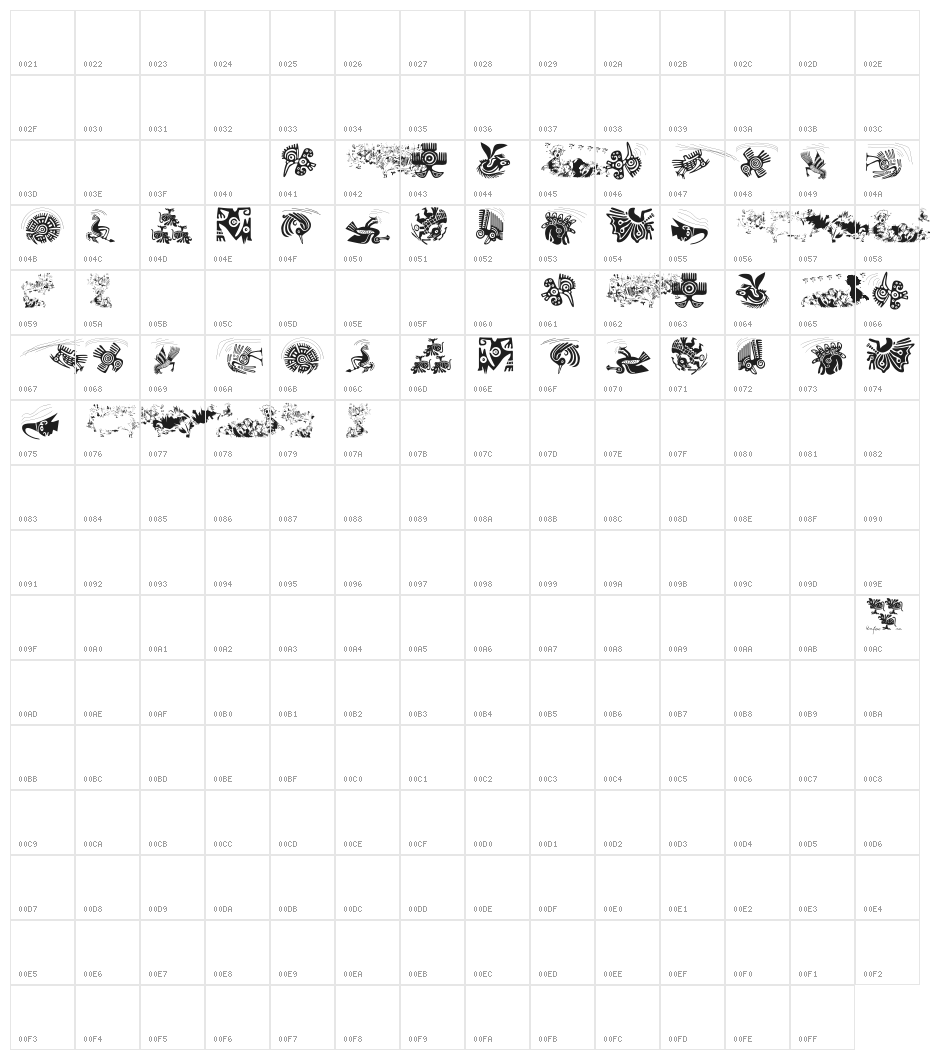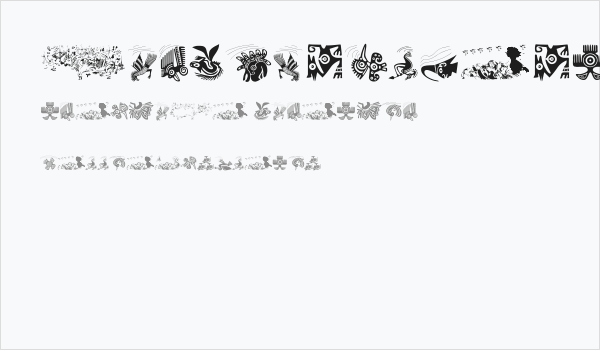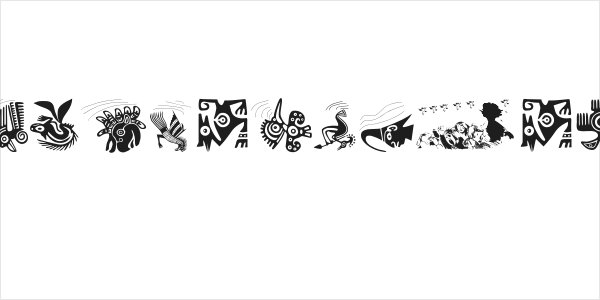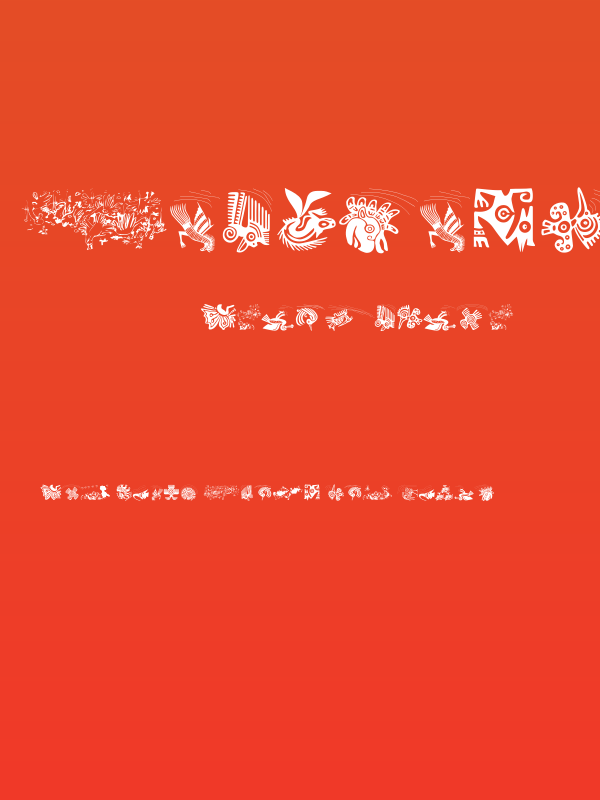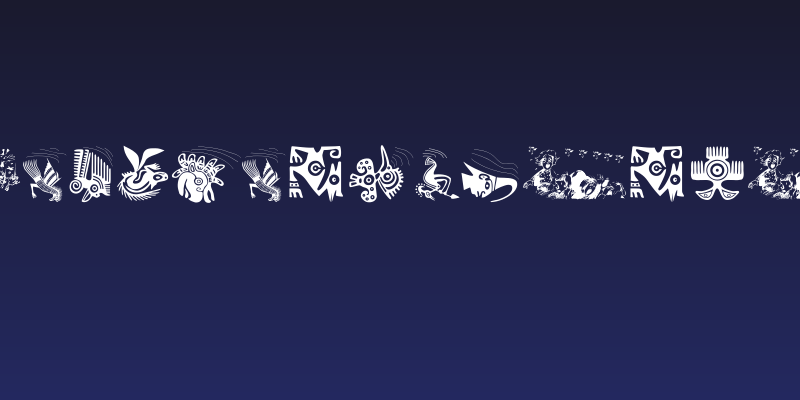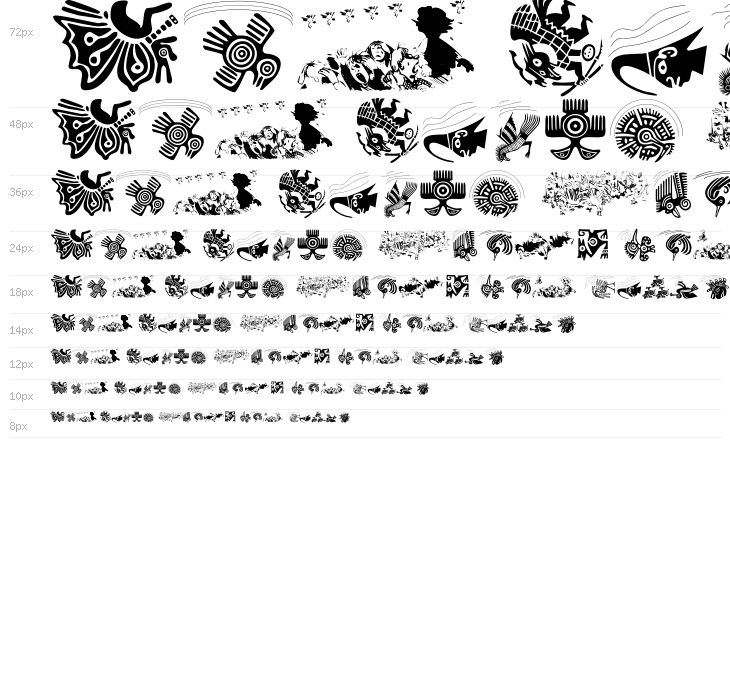
BirdsInfluenced Font
BirdsInfluenced Description
This decorative font is heavily influenced by bird motifs, featuring intricate and artistic designs that incorporate elements of avian imagery. Each character is uniquely crafted, resembling stylized birds with elaborate patterns and flowing lines. The font exhibits a high level of detail and creativity, making it visually striking and distinctive. The characters are not uniform in shape, adding to the whimsical and artistic nature of the font. This font is ideal for projects that require a touch of nature-inspired artistry and a unique visual appeal.
| Use Case | Logos, Posters, Artistic Projects |
| Proposed Projects | Ideal for nature-themed designs, artistic posters, unique branding, and decorative invitations. |